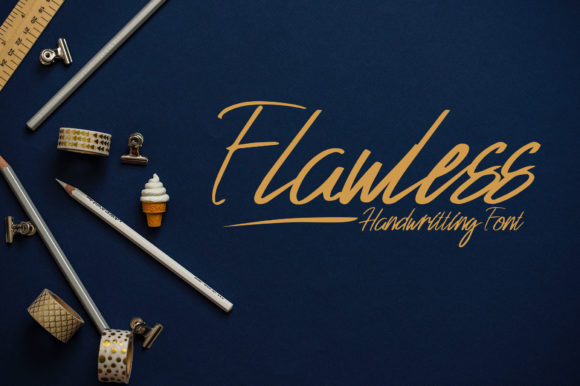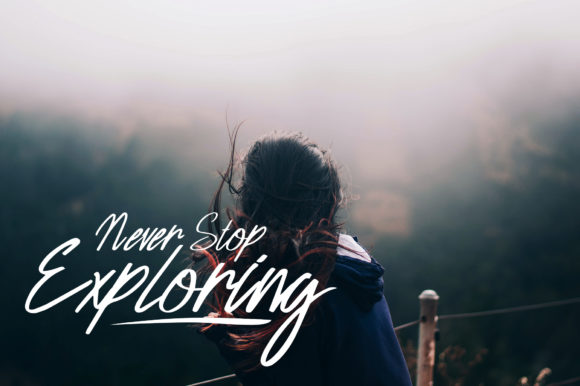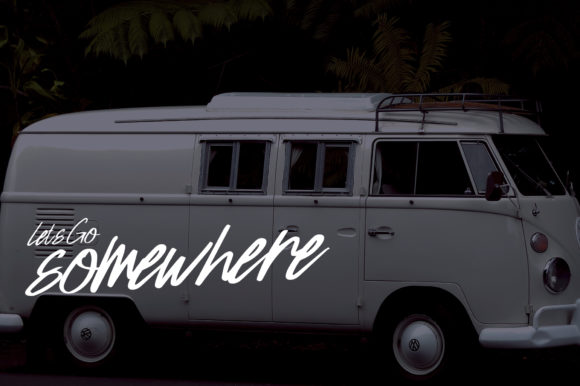
Flawless Font
About Flawless Font
The Flawless is a simple, yet modern font. It has a flawless handwritten style which will be of great value to your book covers, branding designs, quotes, and much more!